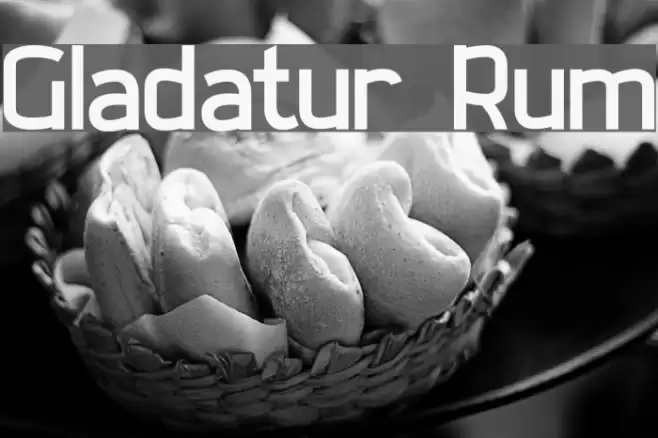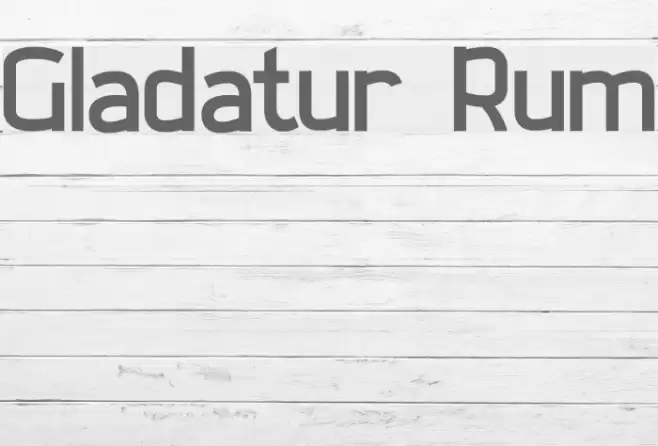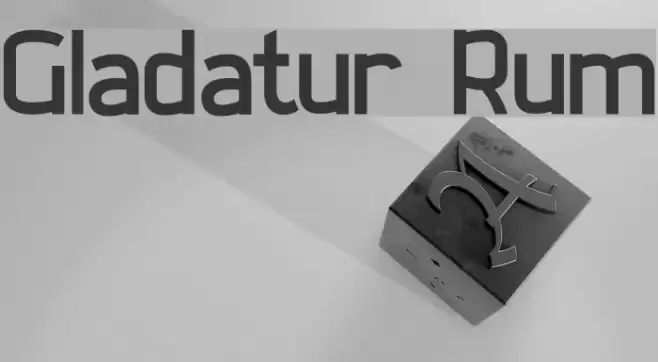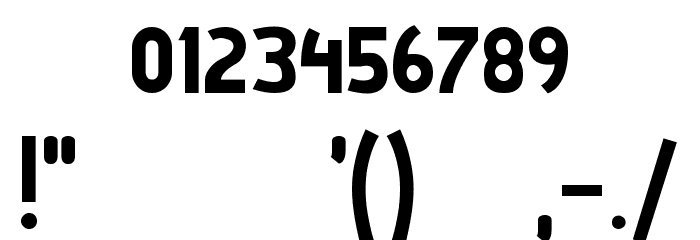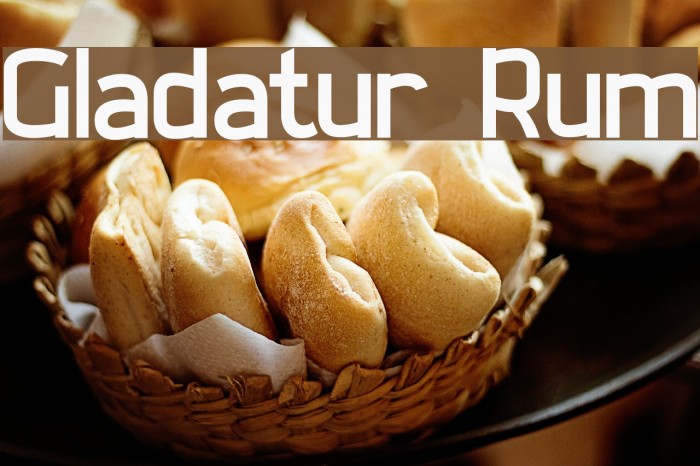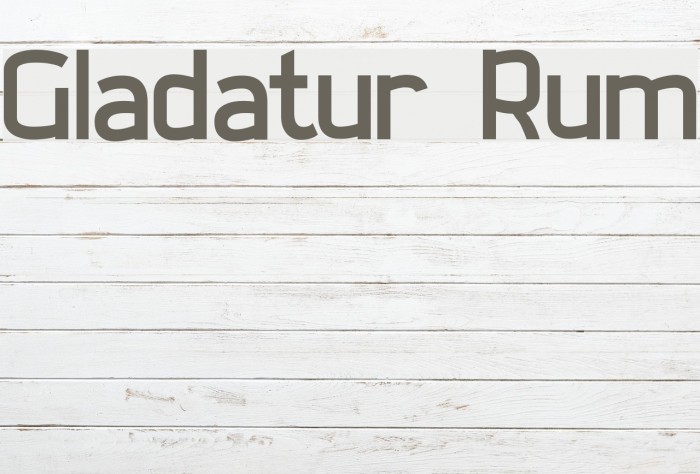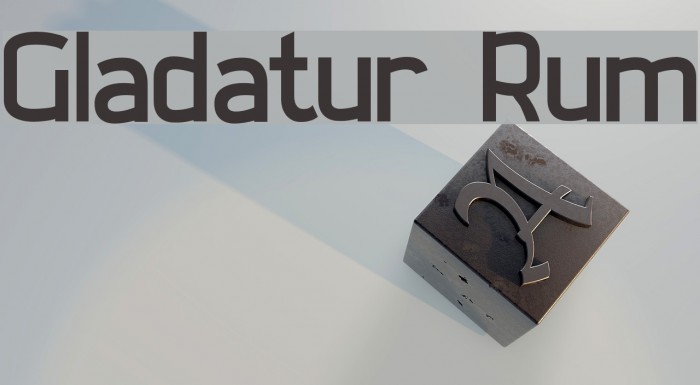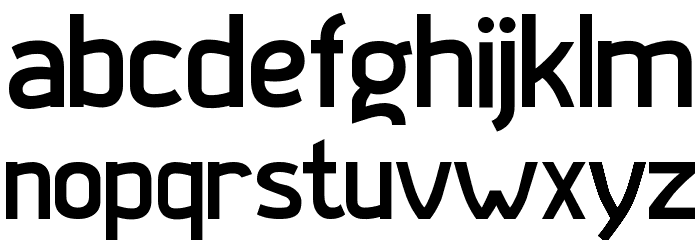
Gladatur Rum Font
Gladatur Rum Description
This font features a modern and geometric design with clean lines and a structured appearance. The uppercase letters are bold and slightly condensed, giving a strong and assertive look. The lowercase letters maintain a consistent style, with rounded edges that soften the overall feel. The numerals are clear and easy to read, matching the boldness of the uppercase letters. Special characters are designed with the same attention to detail, ensuring a cohesive look across all glyphs. The font's uniform stroke width and minimal contrast make it versatile for various applications.
A modern, geometric font with bold, clean lines and a structured appearance from Sans Serif fonts.
- Proposed Projects: Ideal for branding, signage, posters, and digital media where a strong, modern presence is desired.
- Use Case: Headlines, Logos, Branding